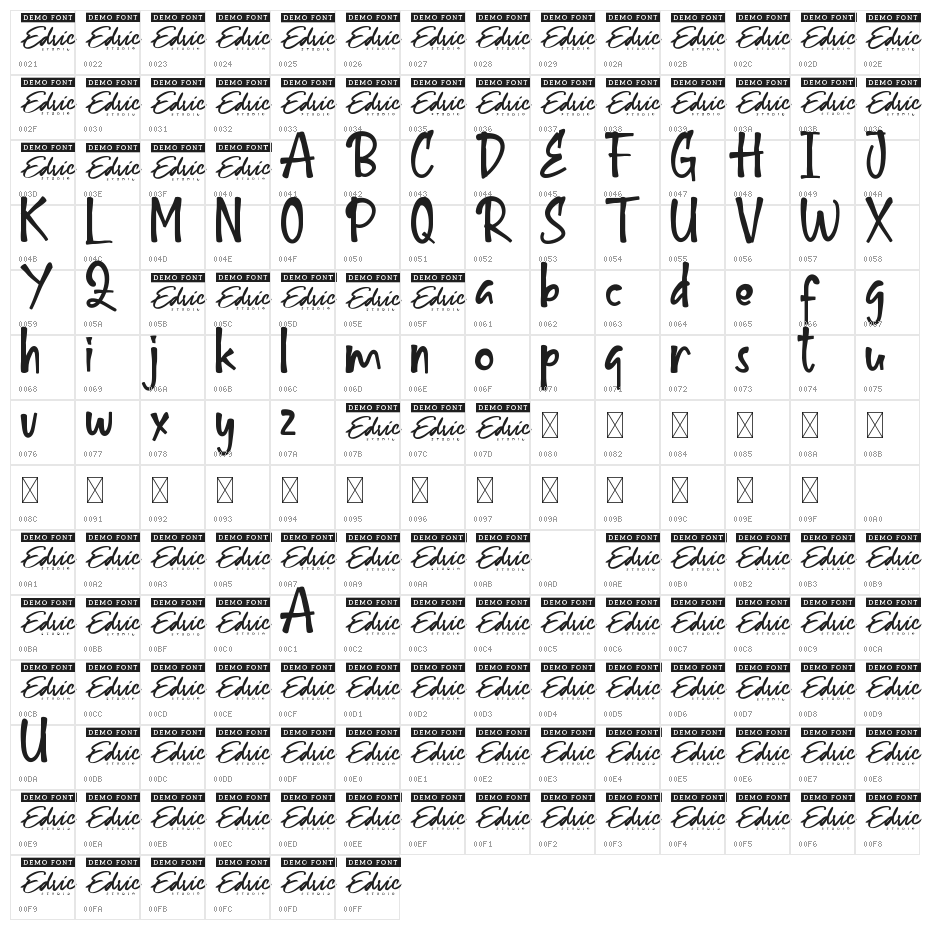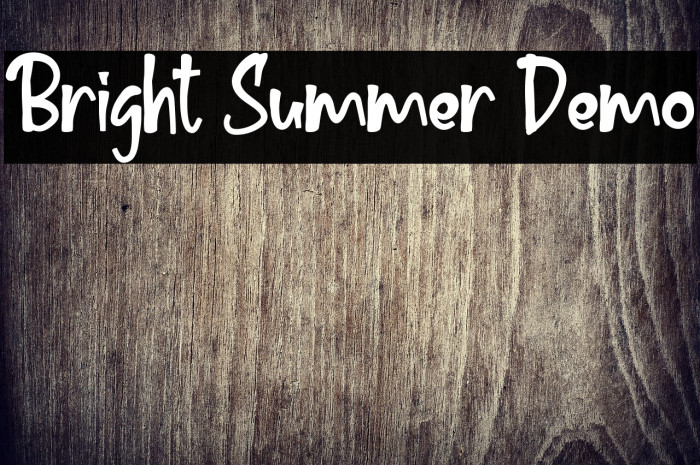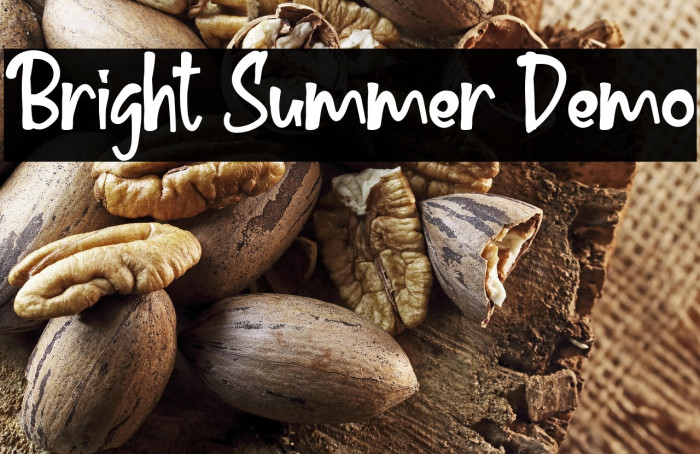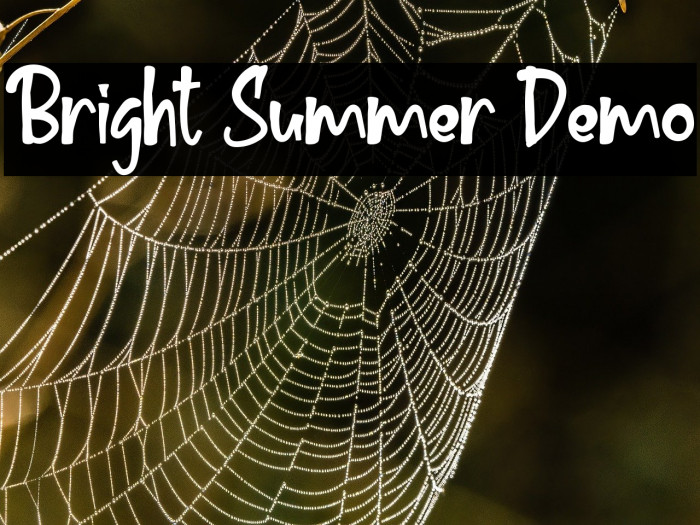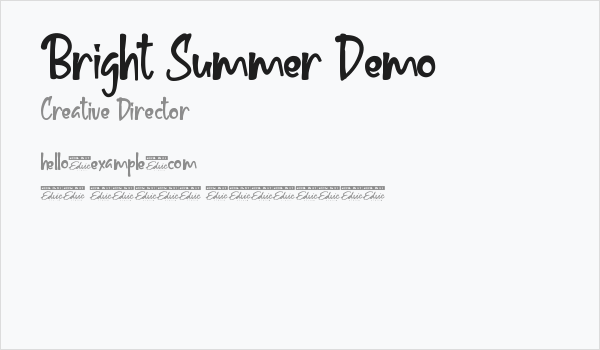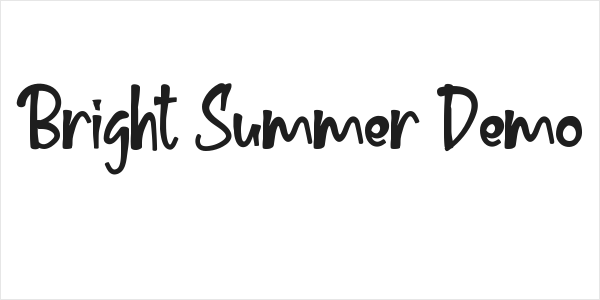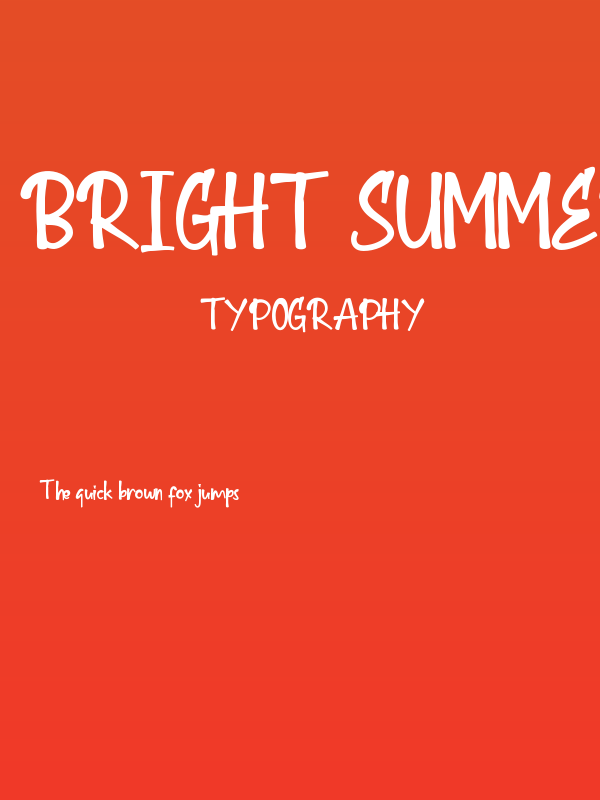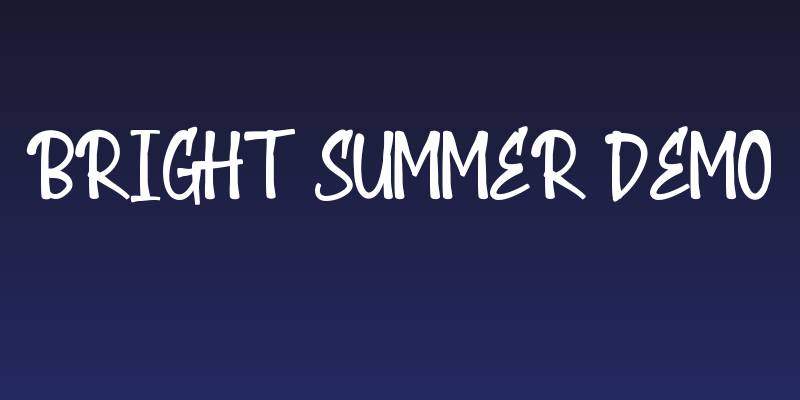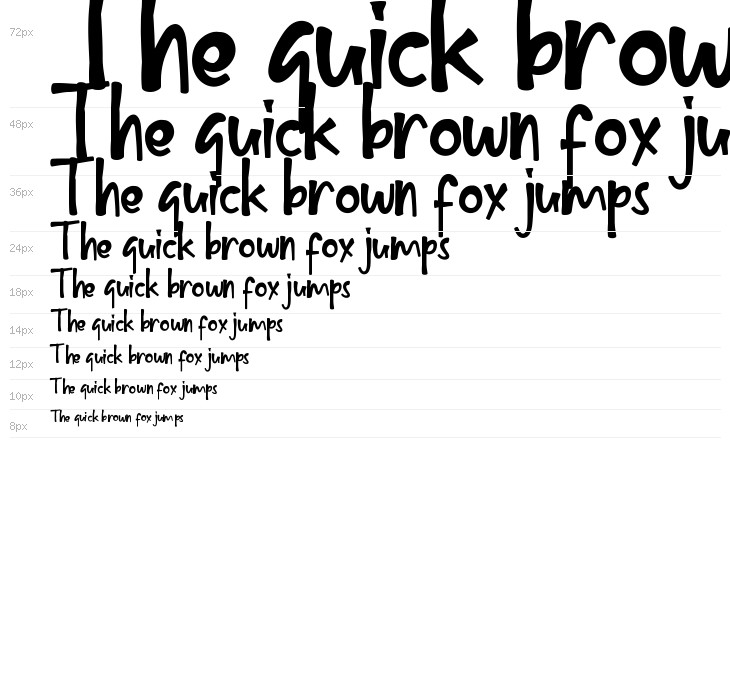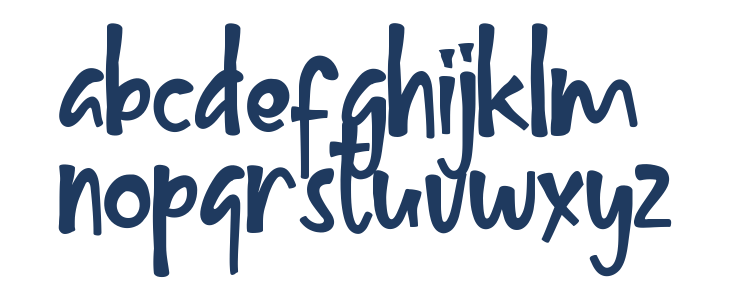
Bright Summer Demo Font
Bright Summer Demo Description
This font features a playful and energetic handwritten style, characterized by its bold and slightly irregular strokes. The uppercase letters are tall and slightly narrow, while the lowercase letters maintain a consistent height with a casual flair. The overall appearance is lively and dynamic, making it suitable for projects that require a personal touch. The font's unique charm is enhanced by its slightly uneven baseline, giving it an authentic handwritten feel. It is versatile enough to be used in various creative projects, from greeting cards to social media graphics.
| Use Case | Headlines, Logos, Social media graphics |
| Proposed Projects | Ideal for greeting cards, social media graphics, posters, and branding projects that require a personal touch. |